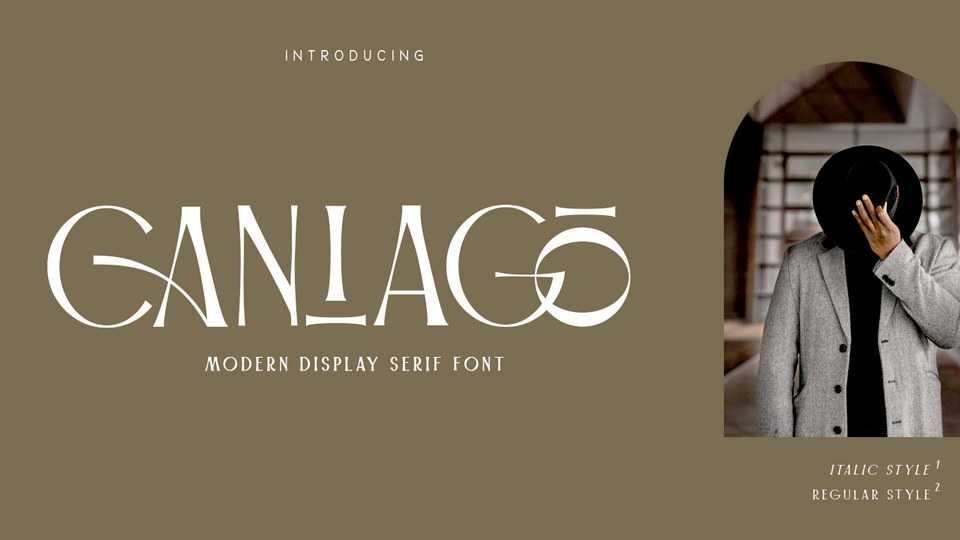
Download Caniago font, a modern, luxury, fashionable display serif typeface. Caniago font is perfect for product presentation, elegant logo design, packaging or invitation cards or heading text.